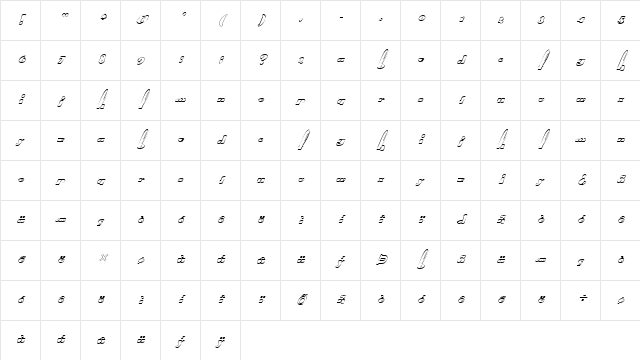
FZ UNIQUE 41 HOLLOW ITALIC Normal
FZ UNIQUE 41 HOLLOW ITALIC Normal Font Preview
FZ UNIQUE 41 HOLLOW ITALIC Normal Preview
FZ UNIQUE 41 HOLLOW ITALIC Normal Character Map
Complete FZ UNIQUE 41 HOLLOW ITALIC Normal glyph index. Displaying only characters natively supported by FZ UNIQUE 41 HOLLOW ITALIC Normal font.
Design Context for FZ UNIQUE 41 HOLLOW ITALIC
FZ UNIQUE 41 HOLLOW ITALIC is a composed and adaptable typeface that performs quietly and consistently across a wide range of design contexts. The slanted form adds forward momentum and visual energy.
Pro Tip: Use FZ UNIQUE 41 HOLLOW ITALIC for emphasis, pull quotes, and subheadings where its slanted energy can add rhythm to the layout.